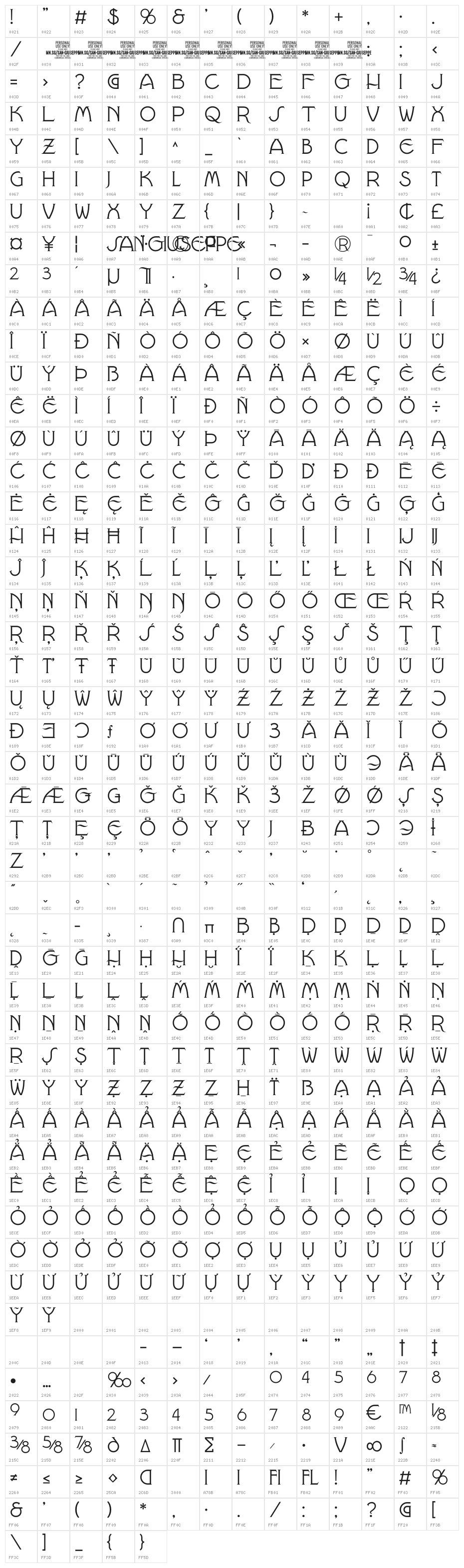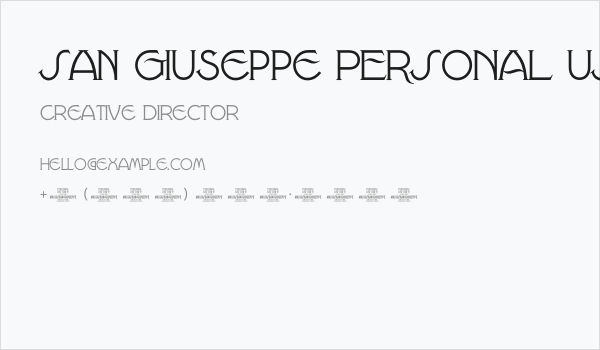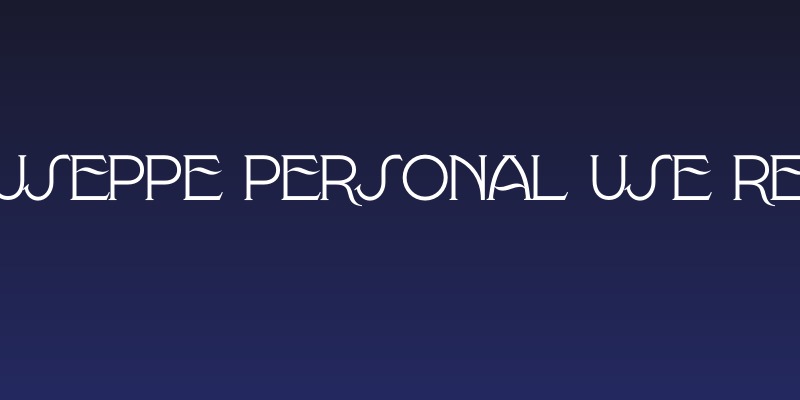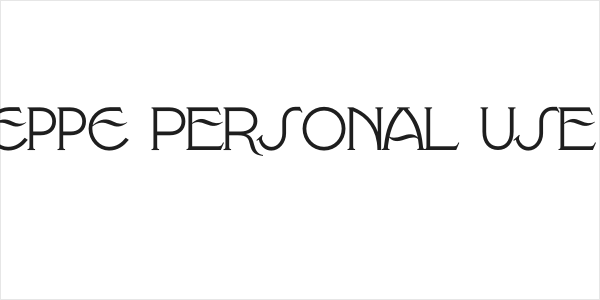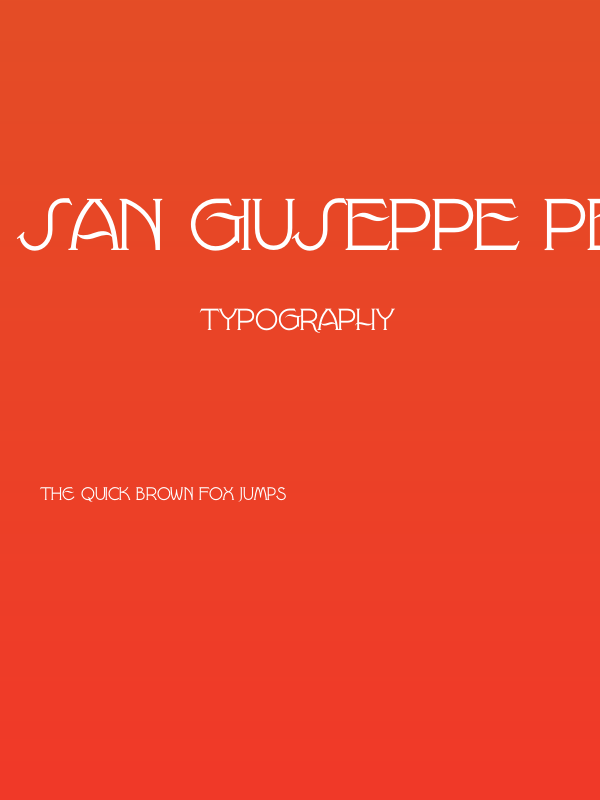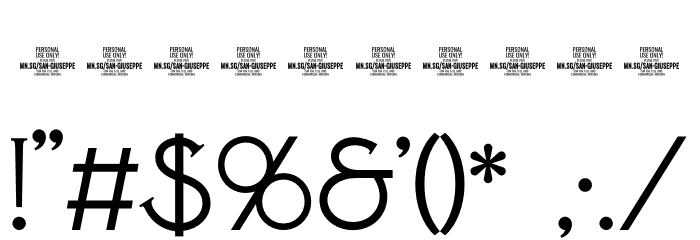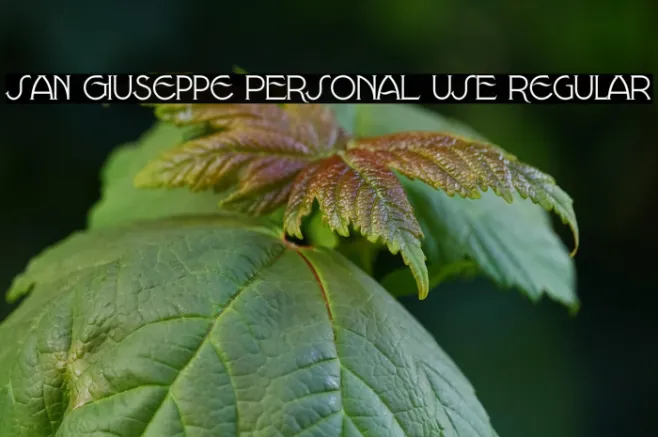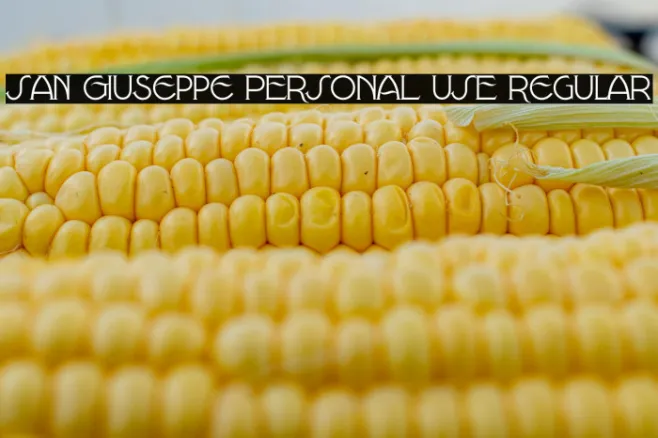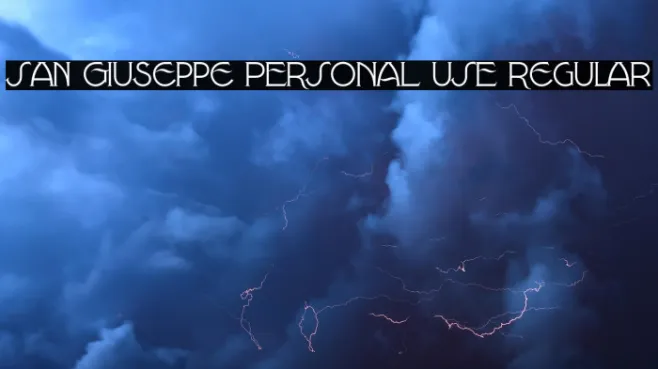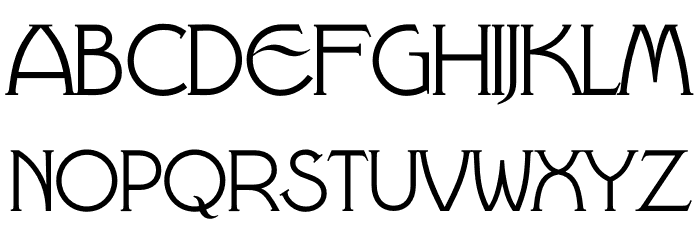
San Giuseppe PERSONAL USE Regular Font
San Giuseppe PERSONAL USE Regular Description
This font features a unique blend of modern and classic elements, characterized by its sharp, angular serifs and clean lines. The uppercase letters are distinct with a slightly elongated form, giving them a sophisticated appearance. The lowercase letters maintain a consistent style, complementing the uppercase with their smooth curves and sharp edges. The numerals are designed with a similar aesthetic, ensuring uniformity across all characters. Special characters are crafted with attention to detail, adding to the font's overall elegance. The spacing between characters is balanced, providing readability while maintaining its stylish flair.